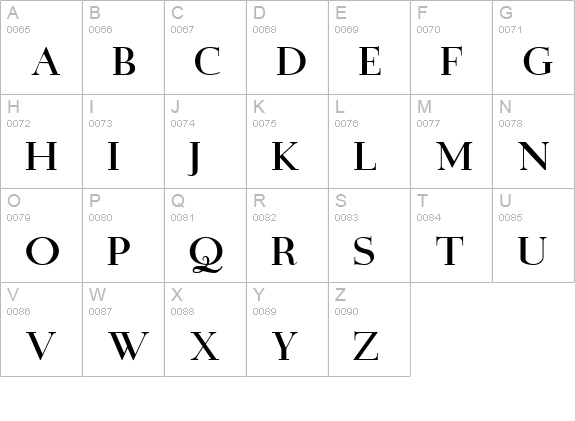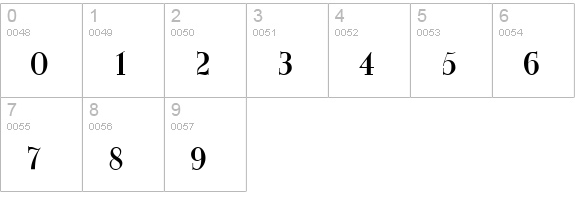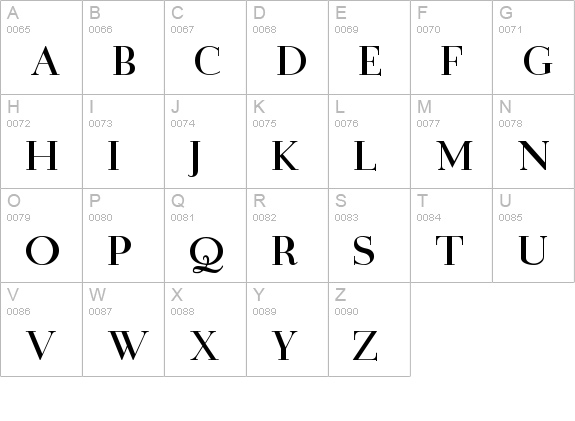
Introducing Grail New font, a modern and stylish typeface that exudes elegance and sophistication. With its sleek lines and unique design, Grail New is perfect for adding a touch of class to any project. Whether you're creating a logo, designing a website, or working on a branding project, this font is sure to make a statement. What's even better is that Grail New font is completely free to use! That's right, you can download this stunning font for free at FontsMarket.com. So why wait? Add a touch of luxury to your designs with Grail New font today!